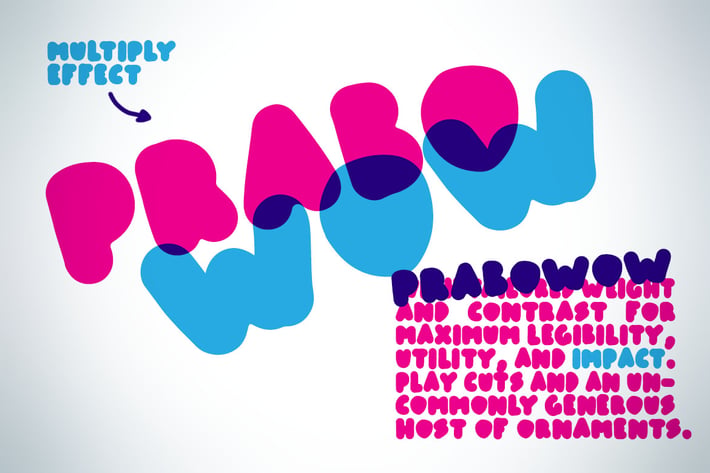
Prabo Fat font
Superfat bold font.
suitable for title or display purpose,
working well with teen and party theme
suitable for title or display purpose,
working well with teen and party theme